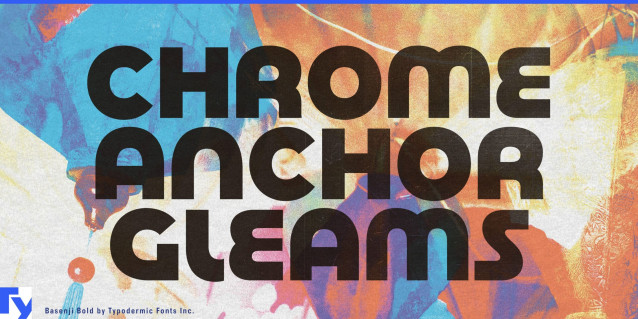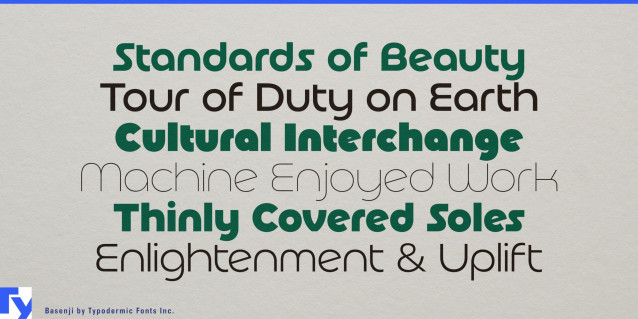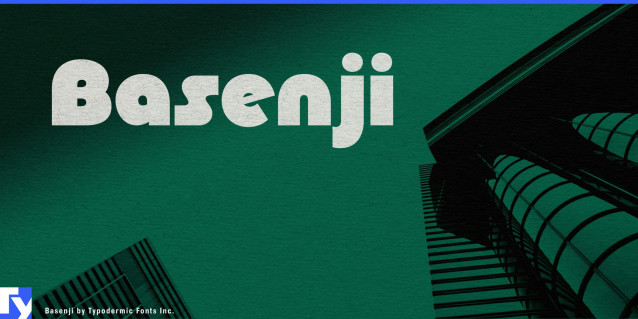
Basenji Font takes the playful geometry of the 1970s—think Rondo, Pump, Bauhaus, and Blippo—and reimagines it with the precision and versatility today’s designers expect. Instead of feeling locked in the past, it delivers a full, flexible family with refined spacing, modern OpenType features, and italics that expand its range far beyond nostalgia.
Spanning nine weights from ultra-light to heavy, Basenji shifts smoothly from subtle elegance to bold, sculptural impact. The lighter cuts bring softness and charm, while the heavier ones land with confidence—equally at home in branding, editorial design, or large-scale signage.
It’s a typeface that carries the warmth of its 70s roots while integrating seamlessly into contemporary workflows. For anyone who admired the classics but wanted them sharper, broader, and more adaptable, Basenji is the modern solution.